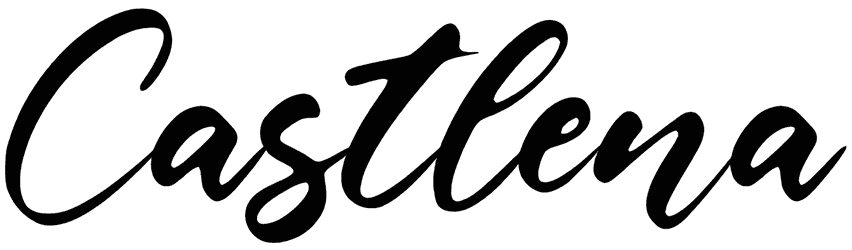
Castlena Font
Sometimes you get stuck in a project and don’t know which font would look better on your work. On this occasion, suddenly, a marvelous script font, the same as the Castlena, comes from nowhere and solves all of your problems.
Since this handwritten font comes with rounded and crooked letters, this masterpiece can establish a vibe of tenderness, whimsicalness, and vitality in your artwork. It would be perfectly matched with blog posts, digital banners, gift cards, or magazines.